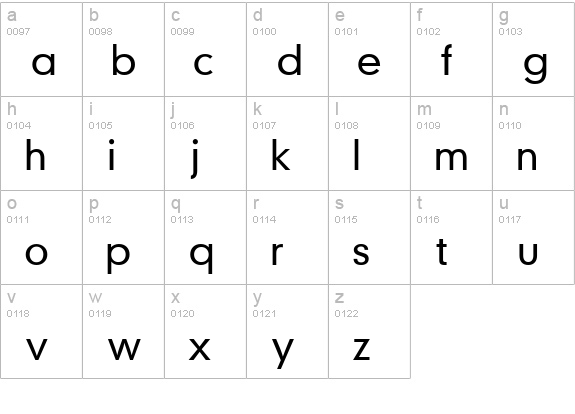
ReprintSSK Font Details
ReprintSSK font is a versatile typeface that combines classic elegance with a modern twist. With its clean lines and stylish curves, this font is perfect for any project that requires a touch of sophistication. The ReprintSSK font offers a wide range of weights and styles, allowing you to create beautiful designs that stand out from the crowd. Whether you're designing a logo, a website, or a poster, this font has you covered. One of the best things about ReprintSSK font is that it is free. That's right, you can download this amazing font for absolutely no cost at FontsMarket.com. This makes it an ideal choice for designers on a budget or anyone looking to add a touch of class to their designs without breaking the bank. Not only is ReprintSSK font freely available, but it is also incredibly easy to use. With its user-friendly design, this font can be installed and ready to use in just a few simple steps. And with its extensive character set, including international language support, you can be sure that your designs will look great no matter where they are viewed. So why wait? Download ReprintSSK font today and elevate your designs to a whole new level of elegance and style. With its free availability and stunning design, this font is a must-have for any designer or creative professional. Don't miss out on the opportunity to enhance your projects with this amazing font. Get your hands on ReprintSSK font now at FontsMarket.com and start creating stunning designs today.